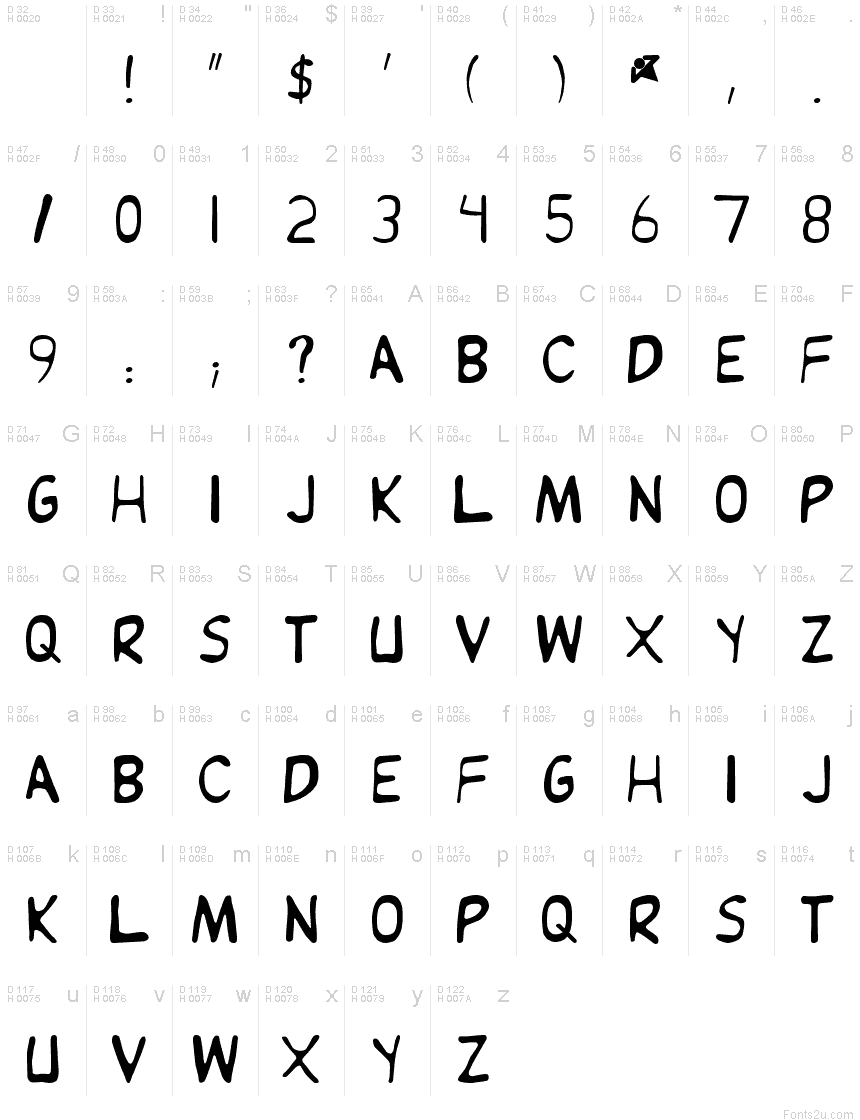
Jean is Dead
Jean is Dead font by Jeff Desantis is a free comic display typeface. Its loose, inky strokes and slightly lopsided curves feel like they were scrawled with a fat marker on a bathroom wall-bold, messy, and a little unhinged. The letters crowd together with a playful tension that gives headlines instant attitude, somewhere between underground zine and horror-comedy title card.
Using Jean is Dead, you can give band posters, DIY flyers, indie comic covers, Halloween graphics, YouTube thumbnails, and sticker designs a raw, handmade edge that still reads clearly at a glance. This free font shines when you set it big and let the chunky forms breathe, then pair it with a clean geometric sans for smaller supporting text.